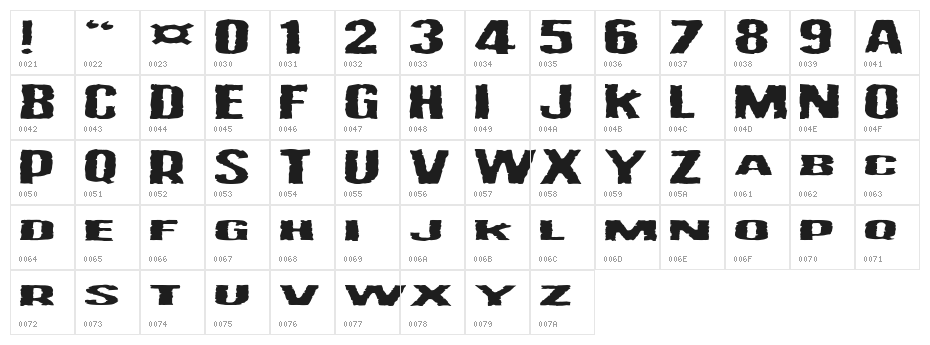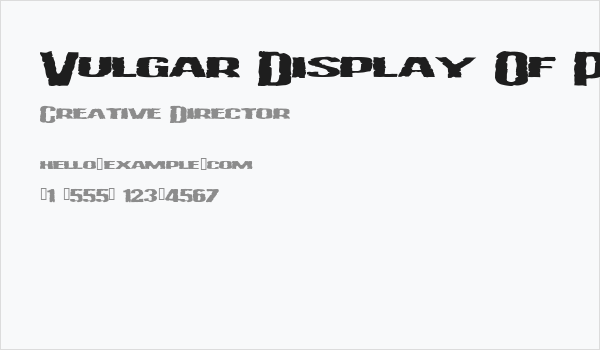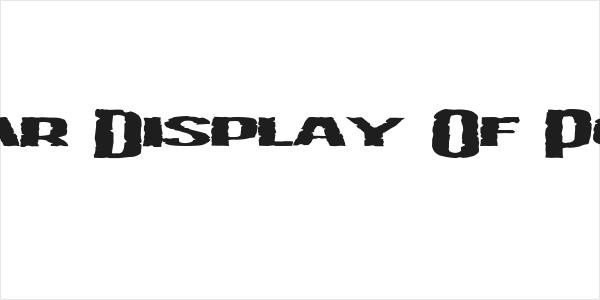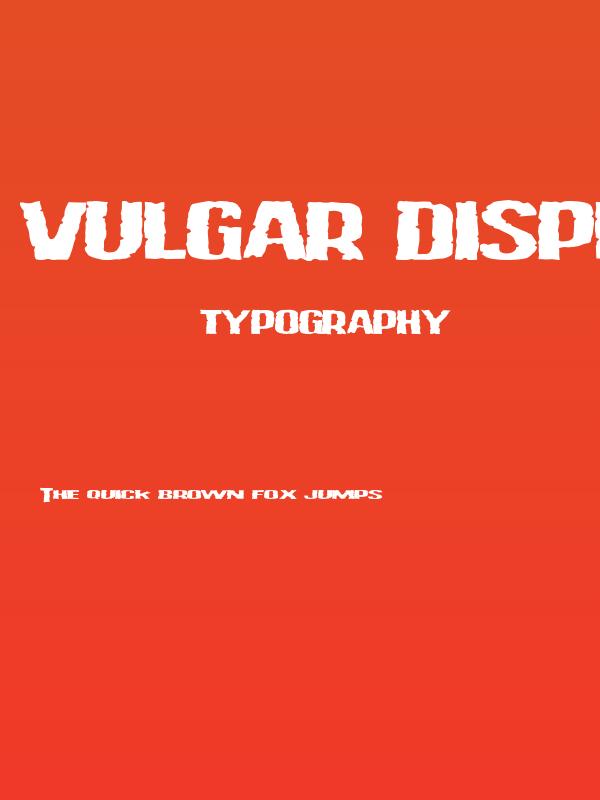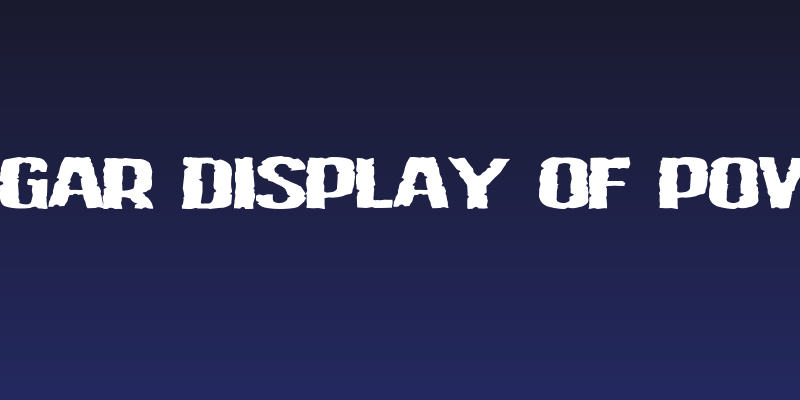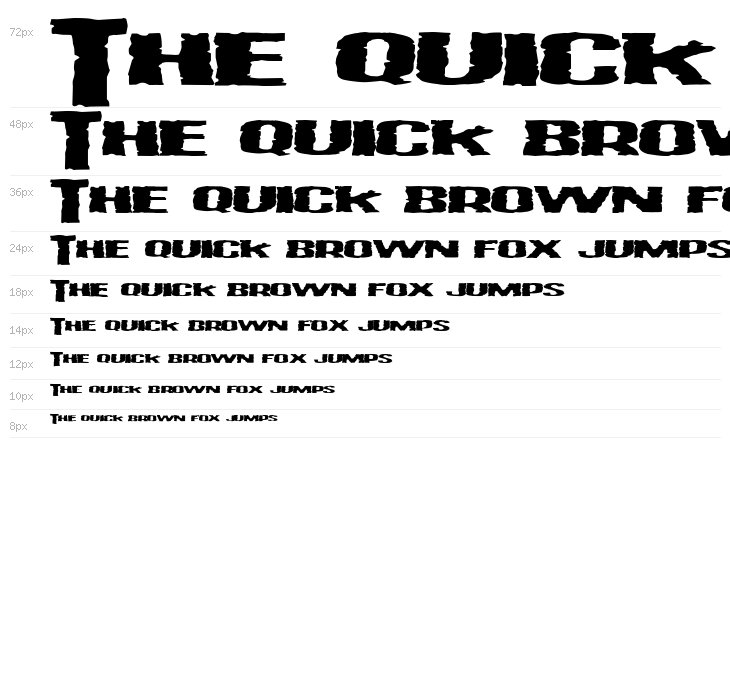
Vulgar Display Of Power Font
Vulgar Display Of Power Description
This font exhibits a bold and aggressive style with a distressed, grunge-like appearance. The characters are heavily textured, giving them a rough and rugged look. The uppercase letters are prominent and impactful, while the lowercase letters maintain the same distressed aesthetic. Numbers and special characters follow the same design, ensuring consistency across all elements. The font's unique style makes it stand out, ideal for projects that require a strong visual impact.
| Proposed Projects | Ideal for music album covers, posters, branding for edgy or alternative products, and any design needing a bold statement. |